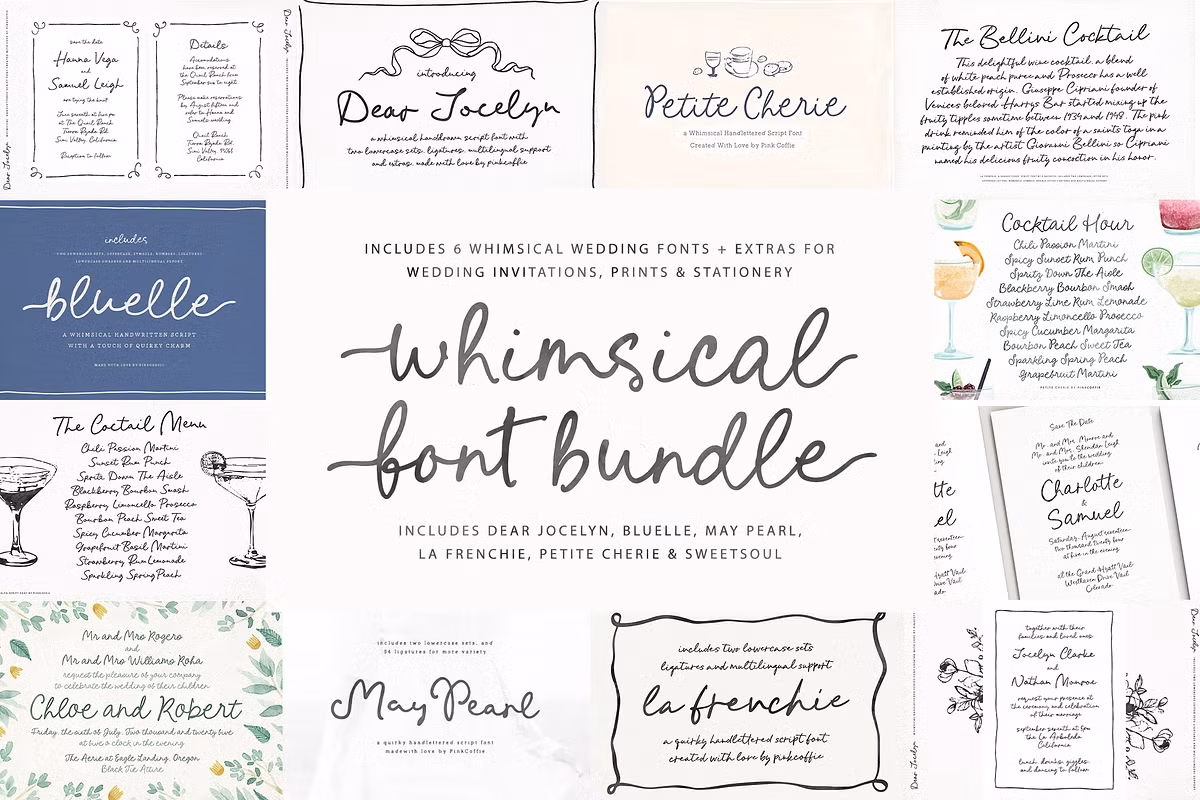
Whimsical Script Font Bundle Free Download
Whimsical Script Font Bundle Free Download is a charming collection of handwritten-style fonts, perfect for adding a playful, elegant touch to your designs. This bundle includes a variety of script fonts with unique flourishes and flowing strokes, ideal for logos, invitations, branding, and more. Whether you're working on a fun, casual project or something more sophisticated, the Whimsical Script Font Bundle provides versatile options to enhance your work.